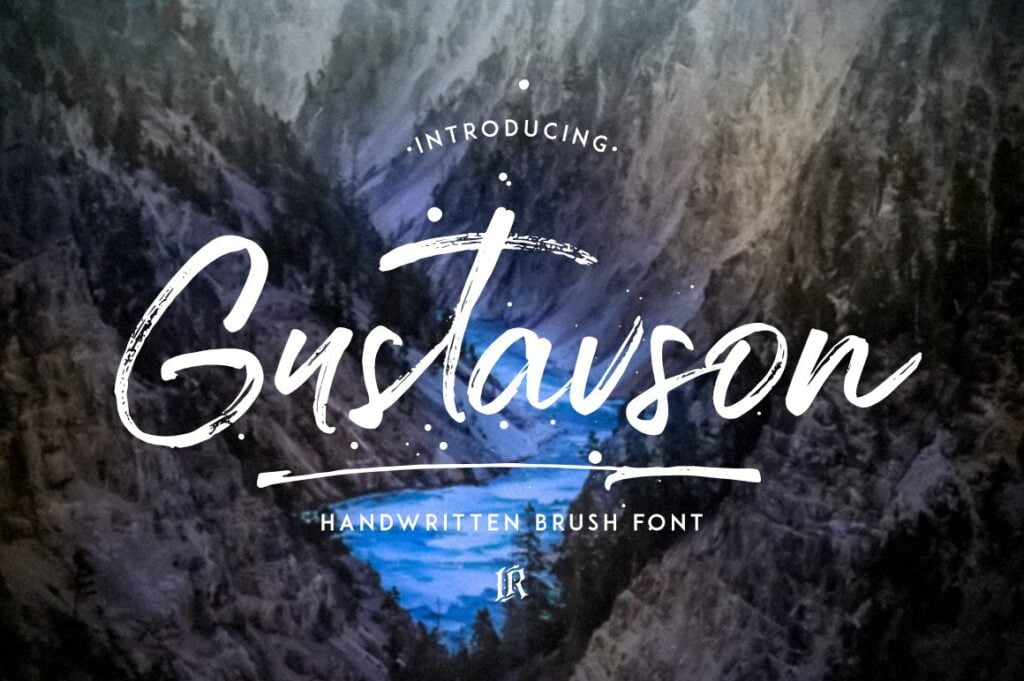
Gustavson Font
Gustavson Font is hand brush font with multilingual support. Is ideal for t-shirts, magazines, phone covers, social media, restaurant menus, greeting cards, invitations, weddings, headers and many more.
This brush font comes with a complete set of lowercase and uppercase characters, a large range of punctuation ligatures, numerals and and multilingual support.
Gustavson Script Brush Font